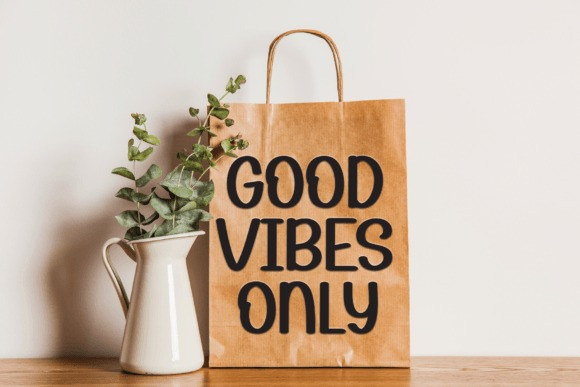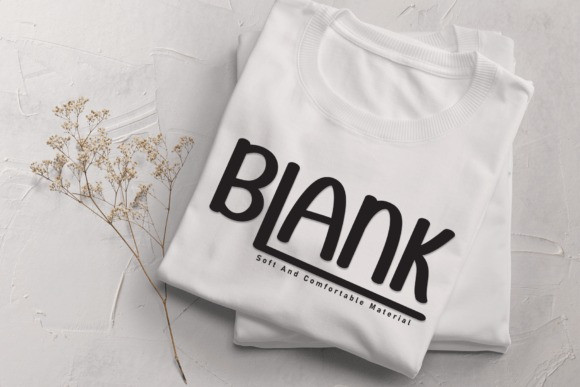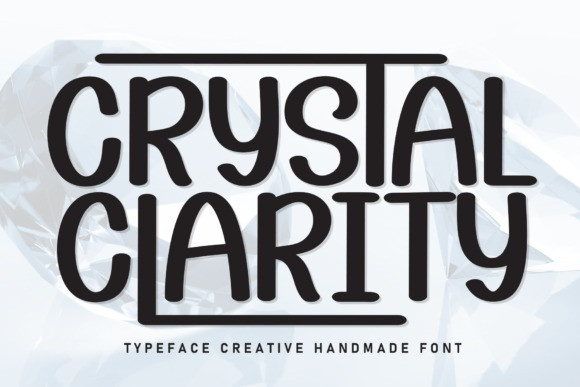
Crystal Clarity Font
Crystal Clarity Font is a lovely and timeless handwritten font. It is the best choice for creating eye catching logos, branding and quotes. Every letter has a unique and beautiful touch, which will make your design come alive!